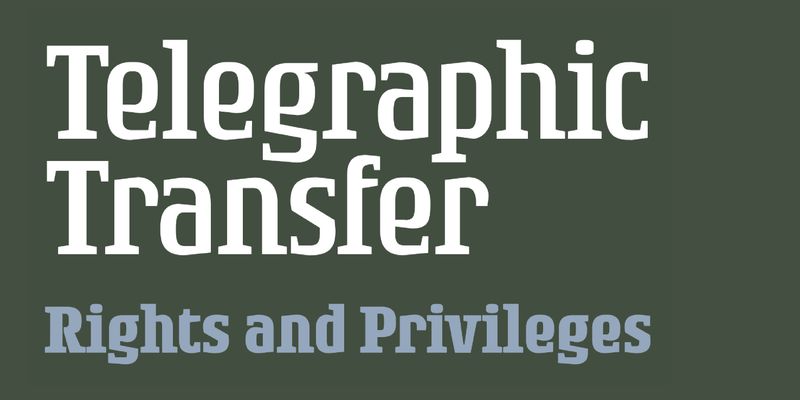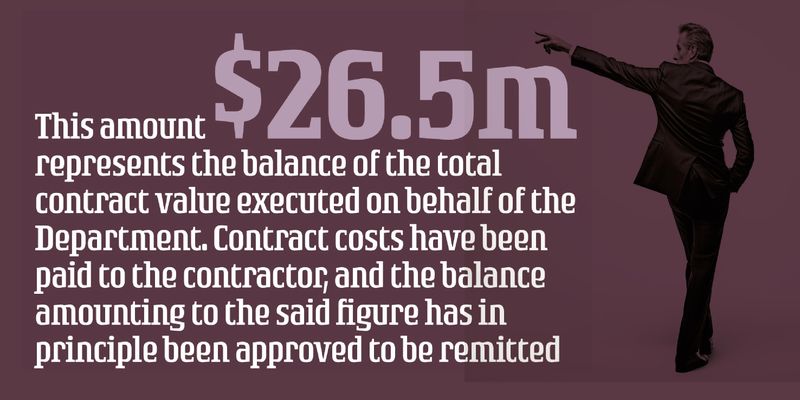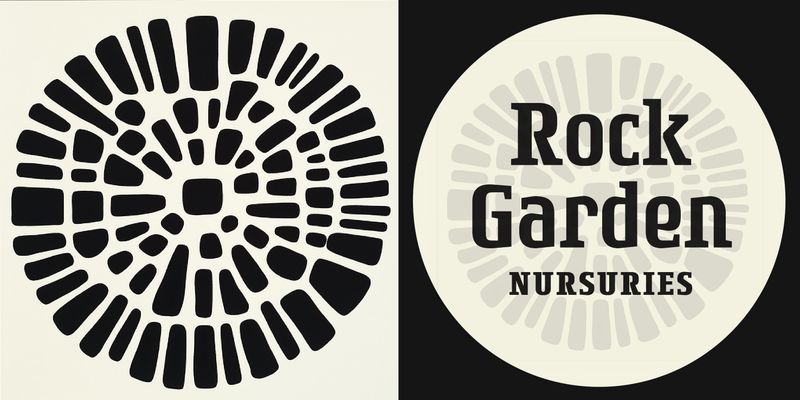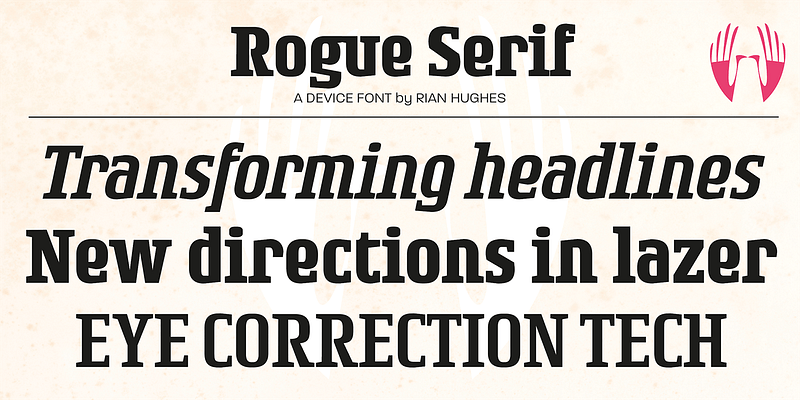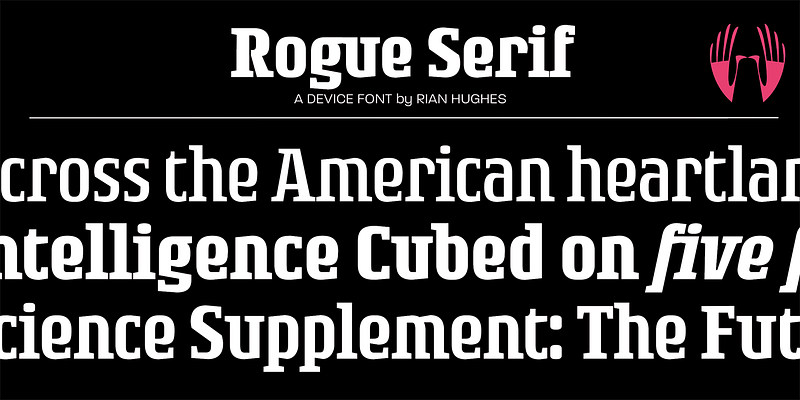
A serif companion to Rogue Sans. A versatile modern clean square serif. Sturdy, masculine, corporate – futuristic and exciting.
Type, design and imagery by English illustrator and typographer Rian Hughes.